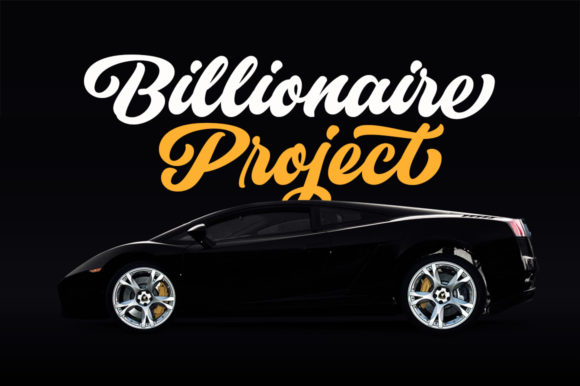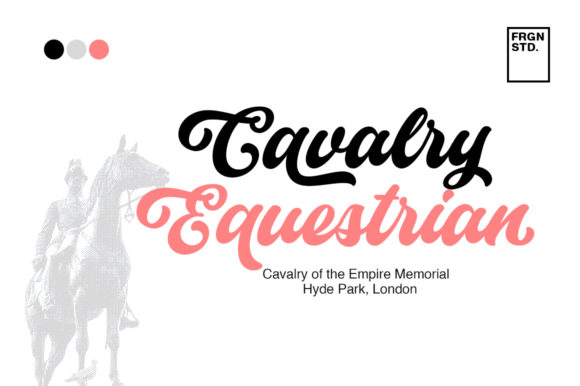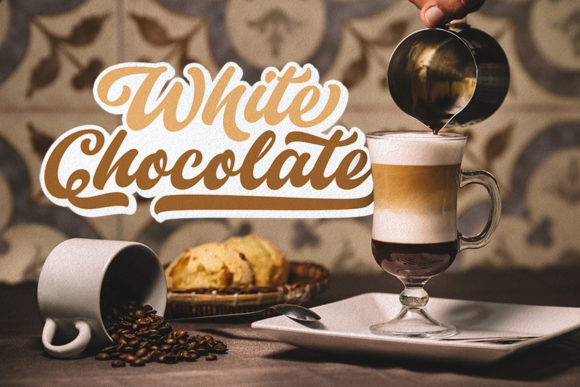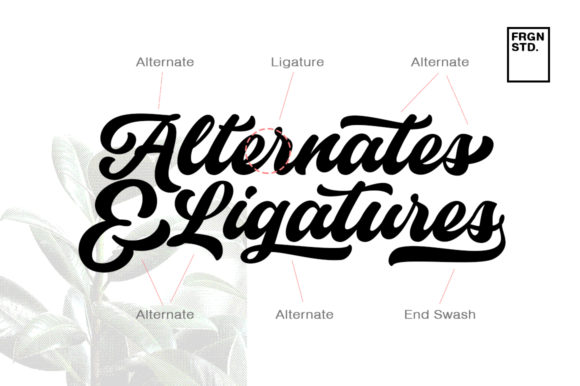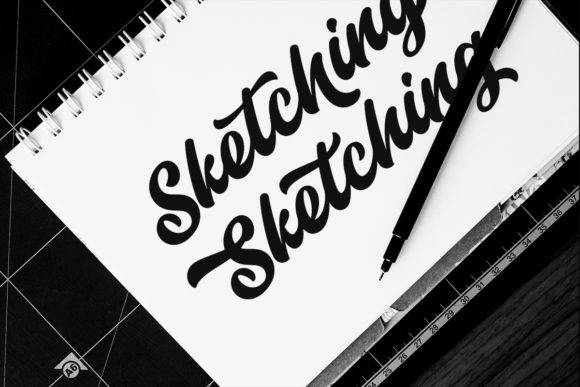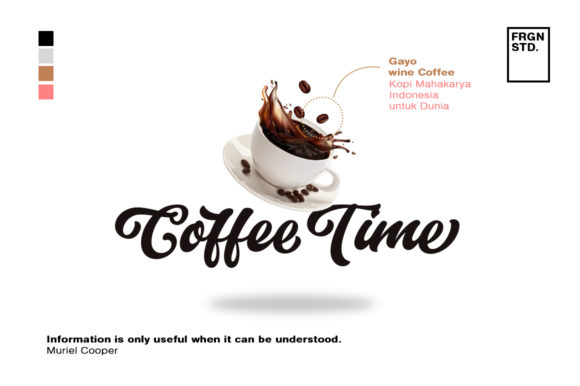
Introduction to Historia Font
As a designer, have you ever found yourself staring at a blank page, desperately searching for the perfect font to bring your creative vision to life? I’m sure many of us can relate to that moment of frustration, only to be relieved when we stumble upon the perfect design resource. For me, that moment came when I discovered the enchanting Historia Font. This sweet, soft hand-lettered script font has been a game-changer in my design projects, and I’m excited to share its magic with you.
With its playful rounded characters and stunning glyphs, Historia Font is the perfect addition to any creative project. Whether you’re designing stunning calligraphy-inspired art, beautiful stationary, or eye-catching social media posts, this high-quality font is sure to elevate your work to the next level. Plus, it’s available for free download, making it a valuable resource for designers of all levels.
Key Features of Historia Font
- High-quality design resource with a wide range of creative possibilities, suitable for various projects
- Designed with a unique, elegant style, perfect for creative projects that require a touch of sophistication
Honest Review: Historia Font
As a designer, I’m always on the lookout for high-quality design resources that can elevate my creative projects. I recently stumbled upon the Historia Font, and I must say, it’s been a game-changer.
What works well: ✨ The Historia Font is incredibly versatile, with a range of weights and styles that make it perfect for everything from body text to headings. The font’s elegant and sophisticated design makes it a great choice for any creative project, from business cards to brochures.
Here are some of the key features that make the Historia Font stand out:
- Wide range of weights and styles, making it perfect for any creative project
⚠️ One limitation of the Historia Font is that it may not be suitable for all design projects. For example, it may not be the best choice for projects that require a bold, eye-catching font.
Overall, I’m thoroughly impressed with the Historia Font. Its high-quality design, versatility, and free download make it a must-have for any designer looking to elevate their creative projects.
The Historia Font is ideal for a variety of creative projects, including logo design, typography-based art, and corporate branding. Its elegant design and transparent background make it a versatile design resource for any project.
Tips for Getting the Most Out of Historia Font
To get the most out of Historia Font, experiment with different font sizes, colors, and combinations. This will help you unlock its full potential and create unique designs that stand out.
Compared to Historia Font, Alex Brush Font has a more refined and delicate look, making it suitable for a wider range of design applications.